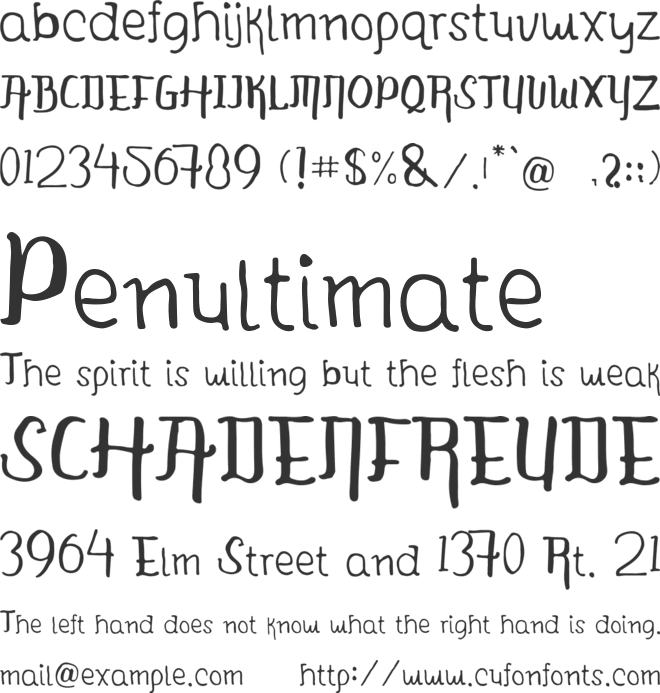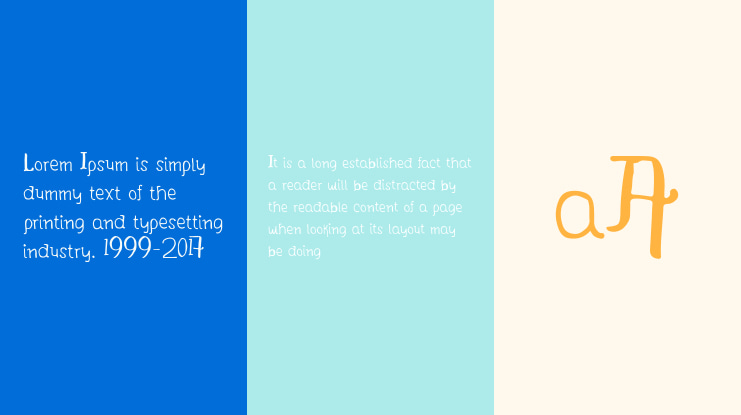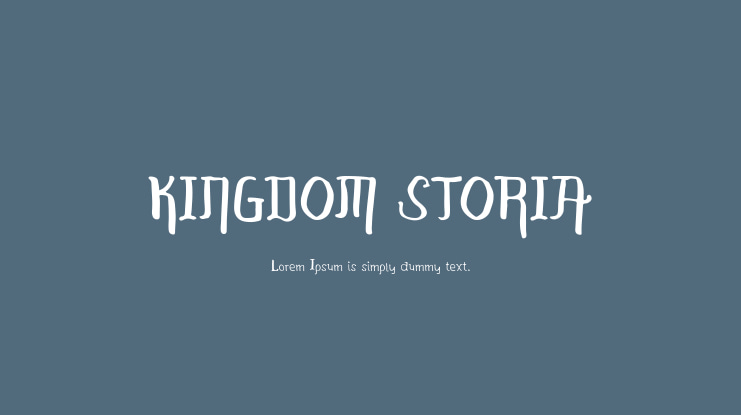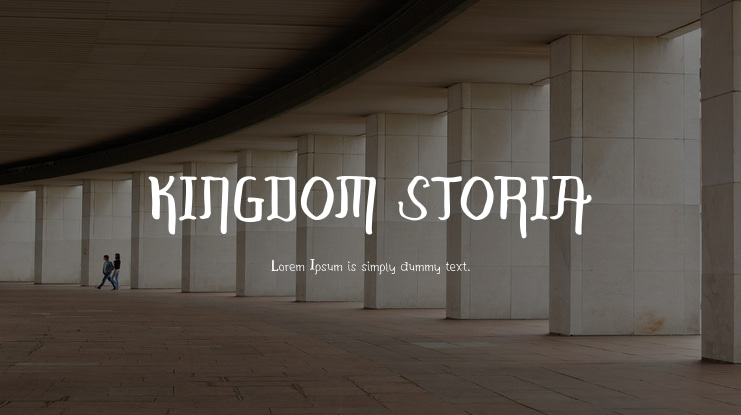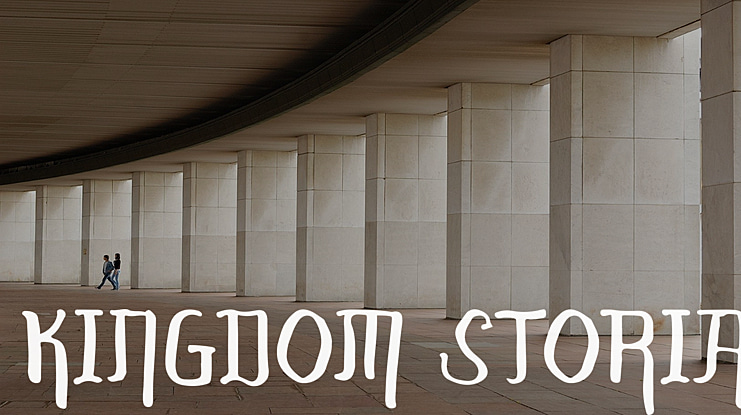
KINGDOM STORIA Font
Kingdom Storia is inspired by the brave heart of the warriors. A font that sharp, but still soft around the edges, will make your projects look powerful! This typeface will give both your formal and non-formal designs the strength and elegance that it needs.
Kingdom Storia Font gives a feel of boldness to a variety of branding projects, logos, wedding designs, social media posts, advertisements, and so much more. Let your imagination run free!